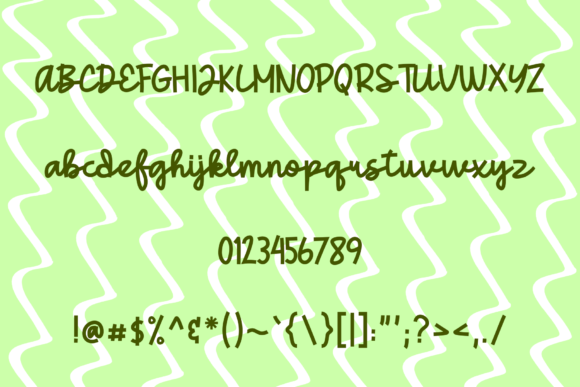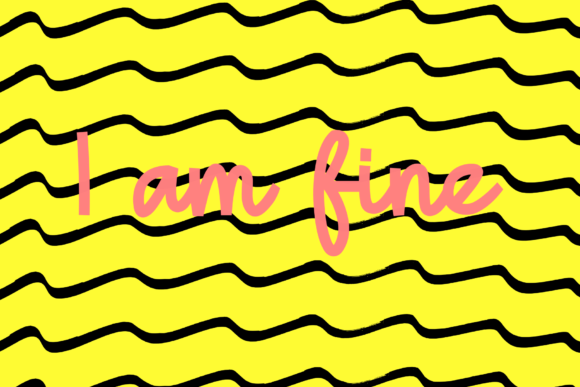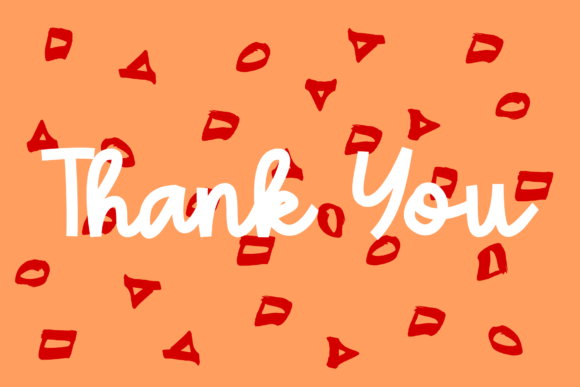
HomeScript FontsGedang Font Script Fonts Gedang Font FacebookXPinterestWhatsApp Gedang Font Poster 2 Gedang Font Poster 3 Gedang Font Poster 4 About Gedang Font The Gedang is a fun and playful font. It’s great for logos, quotes, social media headers, and a lot more! DOWNLOAD NOW People also explored Fete Proke Font Candy Baby Font Calligraphy Font Bundle Vol 3 Emoms Font Backscatter Font Lost Paradise Font Dounats Font Crisp Font 271 0 TagsGedang Font Previous articleSlowly Duo FontNext articleDethalia Font LEAVE A REPLY Cancel reply Comment: Please enter your comment! Name:* Please enter your name here Email:* You have entered an incorrect email address! Please enter your email address here Website: Save my name, email, and website in this browser for the next time I comment. Personal Use Free Trunk Shaped Personal Use Free Read more about this font Lovely Girl Personal Use Free Read more about this font Genres Personal Use Free Read more about this font Evelyne Personal Use Free Read more about this font BLOG 5 Fonts That Will Dominate Design Trends in 2026 5 Fonts for 2026 That Will Dominate Design Trends Typography plays a critical role in visual communication, and as we look ahead to 2026, it’s... Best Fonts for T-Shirt Design – Top 2025 Picks Fonts That Capture the Spirit of New York City Top 7 Google Fonts Alternatives for Faster and Privacy-Friendly Web Design (2025)